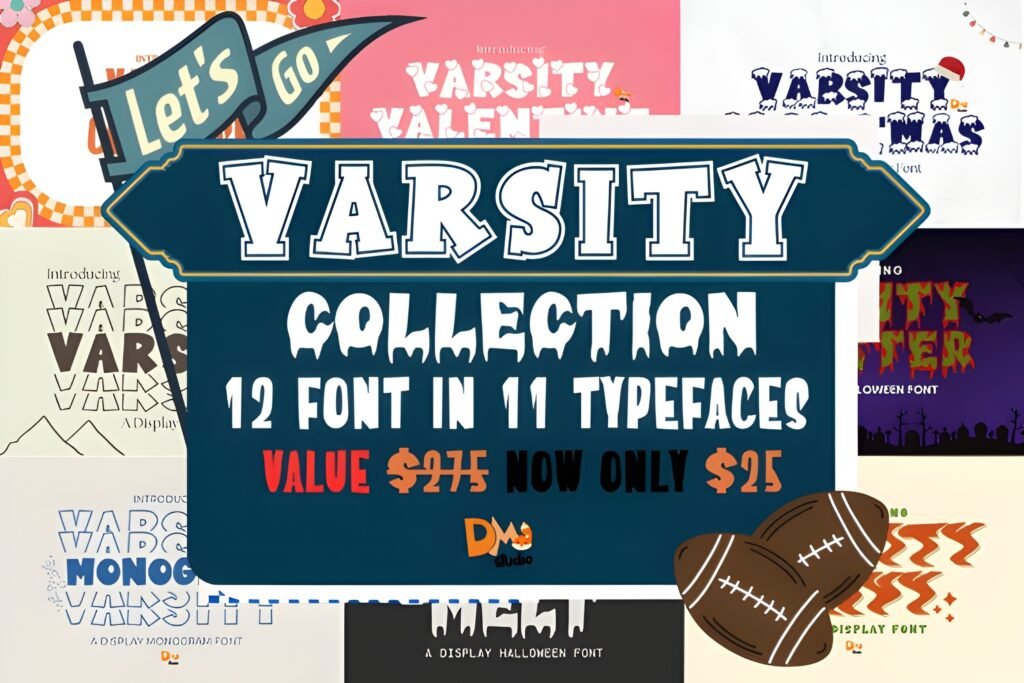
π Varsity Collection β Premium Sports & Seasonal Font Bundle
Elevate your designs with the Varsity Collection by DM Studio, a premium bundle featuring 12 fonts across 11 typefaces crafted for maximum impact. Inspired by bold varsity, collegiate, athletic, monogram, and seasonal styles, this collection is perfect for sports branding, retro projects, festive designs, and modern typography.
Ideal for logos, posters, apparel, merchandise, invitations, and digital branding, the Varsity Collection combines versatility with eyeβcatching design. Save big while accessing trendy, impactful fonts that work for every season.
With Varsity Collection, your projects will stand out β bold, stylish, and unforgettable.